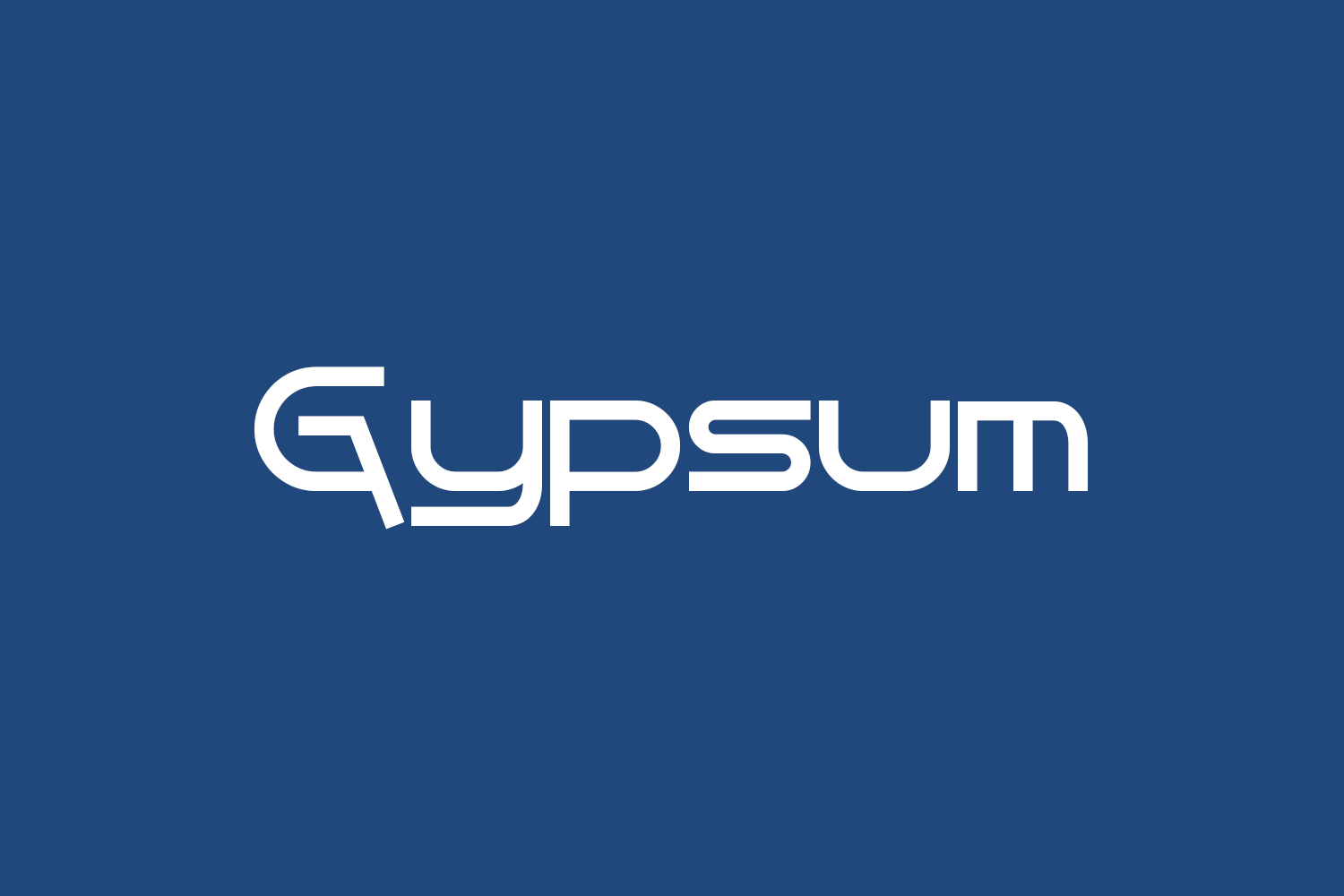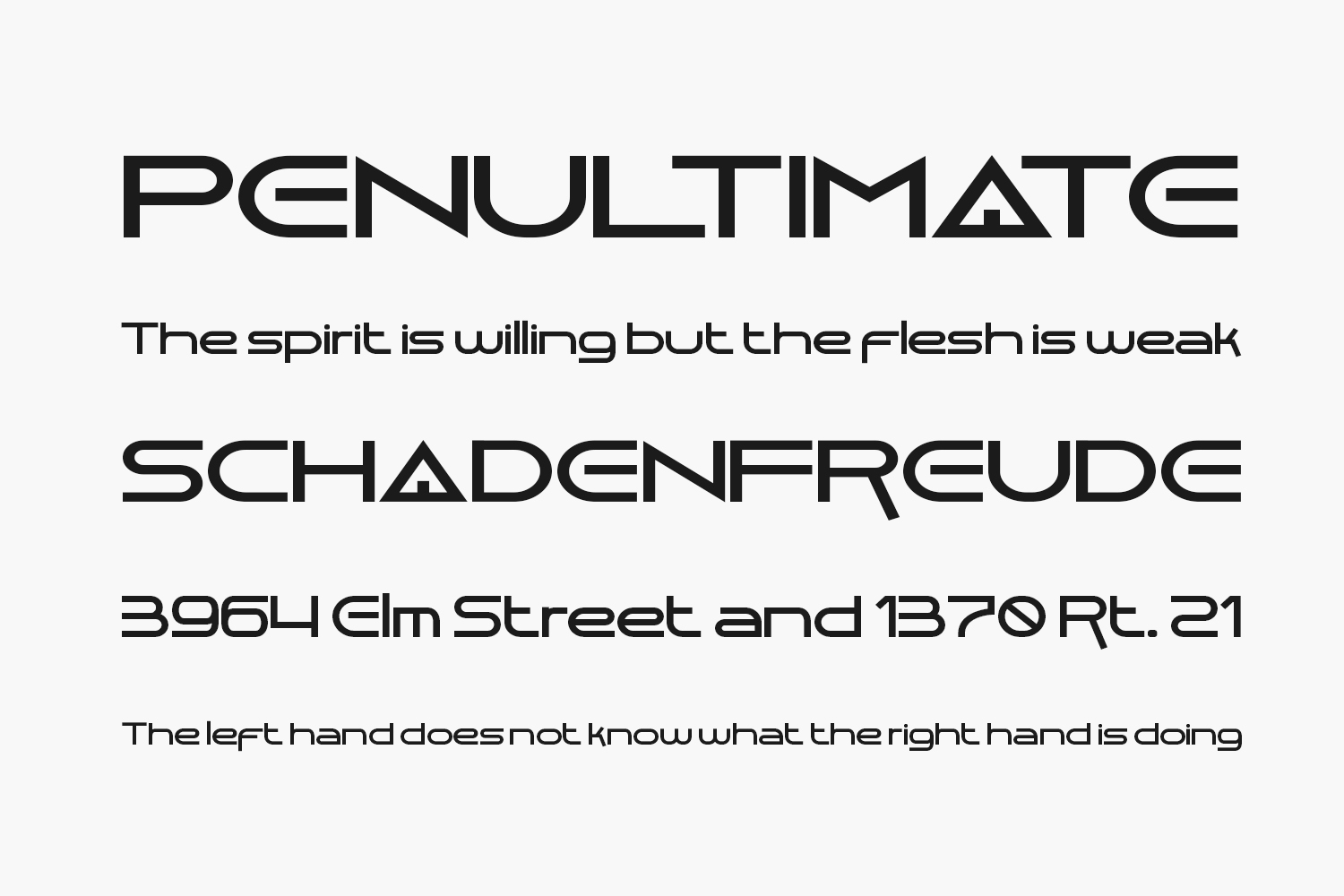
Presenting the latest launch: Gypsum Free Font. This font is an excellent choice for brand logos, invitations, greeting cards, and a variety of projects. Boasting multilingual capabilities and diverse style options, this typeface elevates the visual appeal of your creations, contributing to their overall aesthetic quality. Gypsum Free Font is free for personal use only. Please purchase the full version for commercial use.
Designed by Display Studio